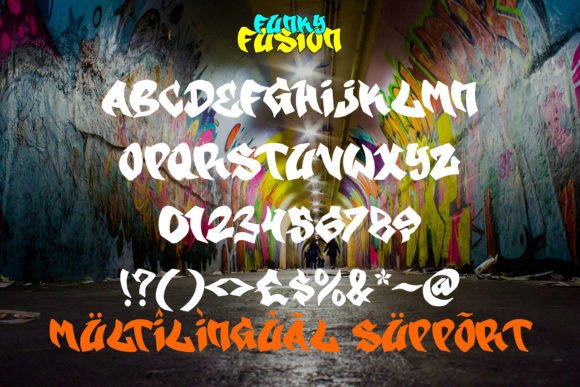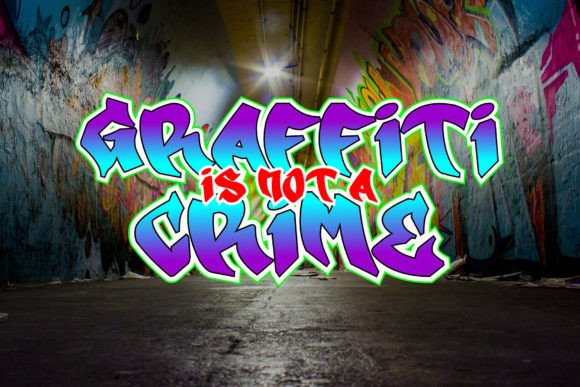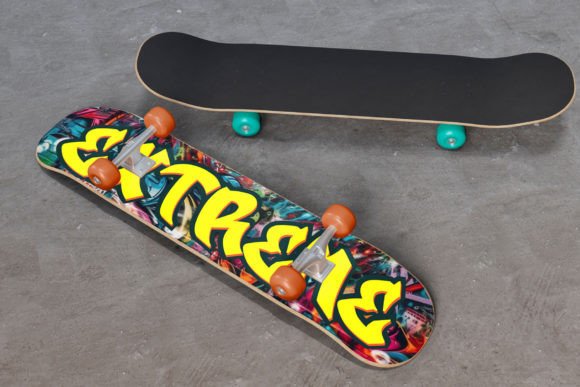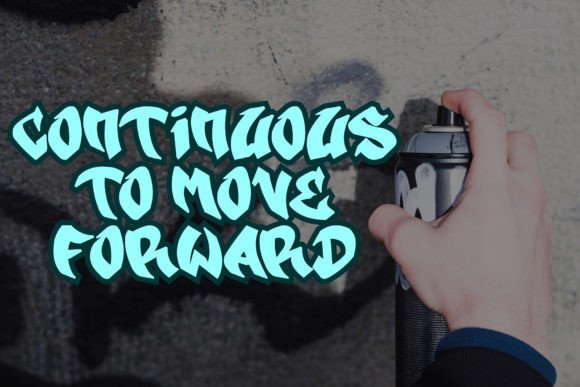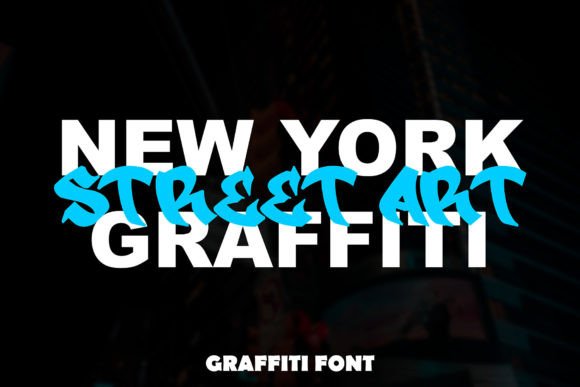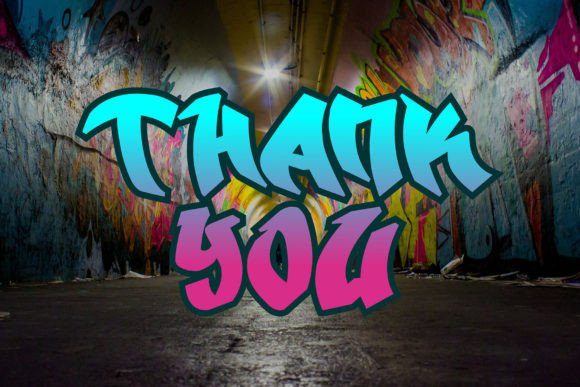
Introduction to Funky Fusion Font
As a designer, have you ever struggled to find the perfect font to give your project that extra oomph? The perfect font can make all the difference between a design that’s just okay and one that really stands out. For me, that moment of inspiration came when I stumbled upon the Funky Fusion Font – a graffiti font with sharp edges that instantly added a touch of urban attitude to my design.
The Funky Fusion Font is more than just a pretty face, it’s a powerful design resource that can elevate your creative project to the next level. With its high-quality, bold, and eye-catching style, this font is perfect for designers who want to add a rebellious flair to their work. And the best part? It’s available for free download with a transparent background, making it easy to integrate into any design.
Whether you’re working on a street-themed project or just want to add a bit of edge to your typography, the Funky Fusion Font is a valuable addition to any designer’s toolkit. In this article, we’ll dive deeper into the world of Funky Fusion Font and explore its many uses and benefits.
Key Features of Funky Fusion Font
- High-quality design resource perfect for creative projects, offering a unique blend of style and sophistication.
- Resolution-independent design, guaranteeing crisp and clear display across various screen sizes and resolutions.
- Unique, handcrafted design that sets it apart from other fonts, perfect for adding a touch of personality to your creative project.
Honest Review: Funky Fusion Font
As a designer, I’m always on the lookout for high-quality design resources that can elevate my creative projects. Recently, I stumbled upon the Funky Fusion Font, and I’m excited to share my honest review with you.
- ✨ Unique and playful characters that add a touch of fun to any design project.
- ✨ High-quality graphics that look sharp and clear, even at large sizes.
- ✨ Transparent background, making it easy to use in various design scenarios.
- ⚠️ Limited font sizes and styles, which might not be suitable for complex designs.
- ⚠️ Not suitable for formal or professional projects, as it may come across as too playful.
Overall, I think the Funky Fusion Font is a great design resource for creative projects that need a bit of whimsy. It’s free to download, and the transparent background makes it easy to use. If you’re looking for a fun and playful font to add some personality to your design, the Funky Fusion Font is definitely worth checking out.
Funky Fusion Font
Funky Fusion Font is a high-quality design resource that can elevate any creative project. With its unique and eye-catching style, this font is perfect for designers and artists looking to add a touch of personality to their work.
Getting the Most Out of Funky Fusion Font
To get the most out of Funky Fusion Font, try experimenting with different font sizes, styles, and combinations. You can also use it in conjunction with other design elements, such as images and graphics, to create a unique and eye-catching design.
Funky Fusion Font is perfect for a variety of design projects, including:
- Graphic design and illustration
Alternatives to Funky Fusion Font
Urban Vibes Font
Urban Vibes Font is a modern, high-quality font perfect for creative projects that require a touch of sophistication and elegance. It features a transparent background, making it ideal for designs that need a clean and minimalist look. This font is great for use in logos, branding materials, and advertisements.
Urban Vibes Font compares to Funky Fusion Font in its modern and sleek design, but it has a more refined and subtle feel. While Funky Fusion Font is more playful and energetic, Urban Vibes Font is better suited for high-end designs that require a level of sophistication.